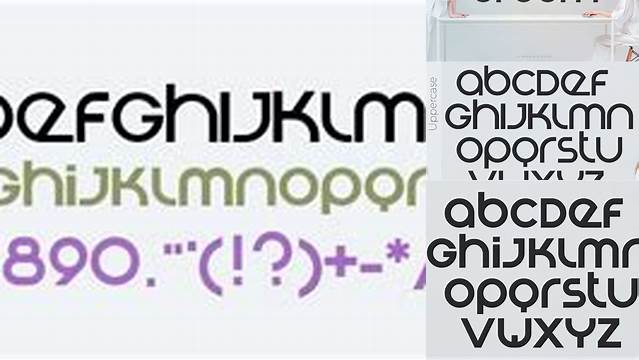
Orborn Round Futuristic Font: Free Download & Design Guide
Hey design enthusiasts! Are you on the hunt for a font that screams futuristic and oozes a modern vibe? Look no further than the Orborn Round Futuristic Font! This gem is perfect for adding a touch of the future to your projects. And the best part? You can grab it for free! This comprehensive guide will walk you through everything you need to know about the Orborn Round font, from downloading it to using it effectively in your designs. Let’s dive in and explore how this awesome font can elevate your creative endeavors.
What Makes Orborn Round Font Special?
First off, let's talk about why the Orborn Round font is such a standout choice. This font is all about clean lines, a circular design, and a distinctly futuristic feel. It's the kind of font that grabs your attention and leaves a lasting impression. The Orborn Round font typically features rounded letterforms, creating a soft yet modern aesthetic. This makes it incredibly versatile, suitable for a wide range of applications, from website headings to print materials. It's like the designers were saying, "Let’s make something that looks like it came straight out of a sci-fi movie, but is also super user-friendly." Think about the sleek designs of tech companies or the minimalist styles that are so popular today – Orborn Round fits right in.
One of the key strengths of the Orborn Round font is its legibility. Despite its unique design, the font remains easy to read, even at smaller sizes. This is crucial for any font, especially when you’re aiming for a professional look. You don’t want a font that’s so stylized that it becomes difficult for your audience to understand your message. Orborn Round strikes a perfect balance, offering a distinct visual appeal without sacrificing readability. Plus, the font family often includes different weights and styles (like bold, italic, etc.), providing you with even more creative flexibility. This means you can use the font for a variety of purposes, from headlines that demand attention to body text that keeps your readers engaged.
In addition to its aesthetic appeal and readability, the Orborn Round font is often associated with innovation and progress. This makes it a great choice for brands that want to project a forward-thinking image. Whether you're designing a logo, website, or marketing materials, this font can help you communicate your brand's values effectively. Think about it – if you're in the tech industry, using a font that looks like it belongs in the future is a no-brainer. It reinforces your brand's message and helps you connect with your target audience. With its modern look and user-friendly design, the Orborn Round font has become a favorite among designers. It’s a tool that lets you easily create designs that are both visually appealing and highly functional.
Using Orborn Round Font in Your Designs: Tips and Tricks
Now that you have the Orborn Round font, let's explore how to use it effectively in your designs. This font is versatile, but it works best when used thoughtfully. First and foremost, consider the context of your design. The Orborn Round font is ideal for projects where you want to create a modern, futuristic, or tech-savvy feel. It's perfect for website headings, logos, and other elements where you want to make a bold statement. Think about the overall message you want to convey. This font will help you give the design a cohesive vibe, as the font gives the design a modern look.
One of the best ways to use Orborn Round is in headings and titles. Its clean lines and unique shape make it perfect for grabbing attention. Use a bold weight to make your headlines stand out, and experiment with different sizes to create visual hierarchy. But don't overdo it. When using the Orborn Round font, less is often more. Avoid using it for large blocks of body text, as its distinct design can make it difficult to read for extended periods. Instead, pair it with a more traditional, legible font for your body copy. This combination will create a good balance between visual interest and readability. Ensure a pleasant viewing experience for your audience.
Another great tip is to experiment with different color combinations. The clean lines of the Orborn Round font look fantastic with bold, vibrant colors. Consider using contrasting colors to make your text pop against the background. Play around with gradients and shadows to add depth and dimension. To make it even more unique, combine this font with other design elements. Incorporate geometric shapes, abstract patterns, or minimalist layouts to amplify the futuristic vibe. By incorporating these elements into your design, you will create something unique, while highlighting the futuristic feeling of the Orborn Round font. You can also combine the font with other fonts to make a good combination.
Conclusion: Embrace the Future with Orborn Round Font
In conclusion, the Orborn Round Futuristic Font is a fantastic tool for any designer looking to add a modern and forward-thinking touch to their projects. With its clean lines, rounded design, and versatility, it's perfect for a wide range of applications, from website headers to logo designs. Remember, the key to using this font effectively lies in understanding its strengths and limitations. Use it strategically to create visual impact, and always pair it with a legible font for body text. By following these tips and tricks, you'll be well on your way to creating stunning designs that capture the essence of the future. So, go ahead, download the Orborn Round font for free, and start designing something amazing! Happy designing, and let your creativity soar!